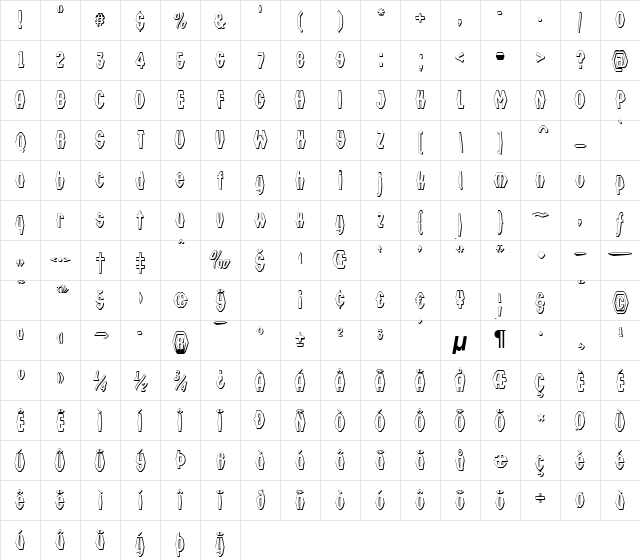
a_Technocrat3DFnt Regular
Designer: W.Chufarofsky & M.Slutsker
Design Context for a_Technocrat3DFnt
a_Technocrat3DFnt has a distinctly futuristic character, with geometric precision and clean angles that feel at home in technology, gaming, and sci-fi contexts.